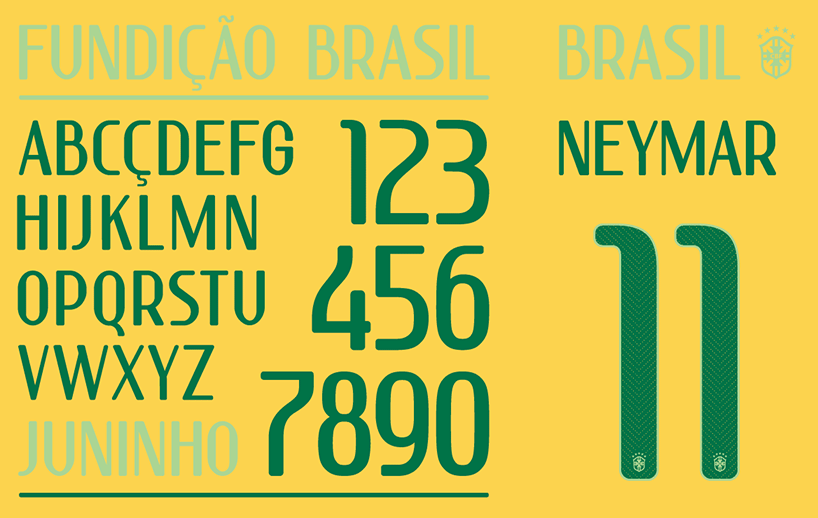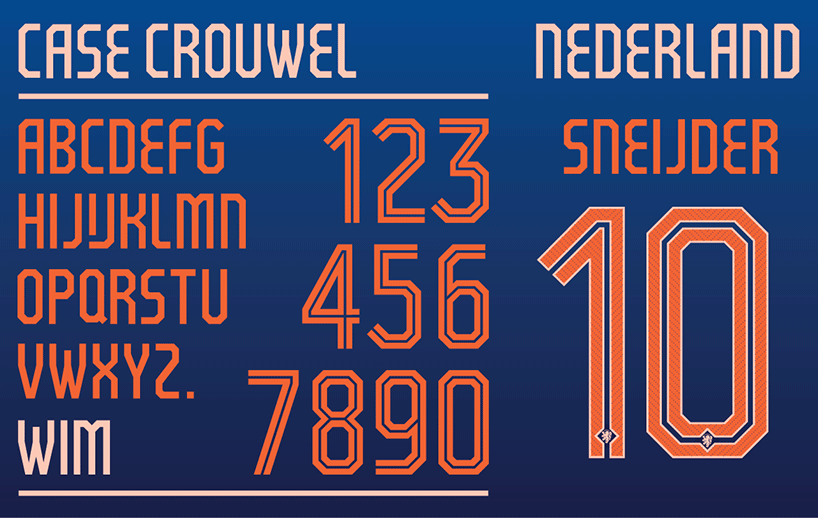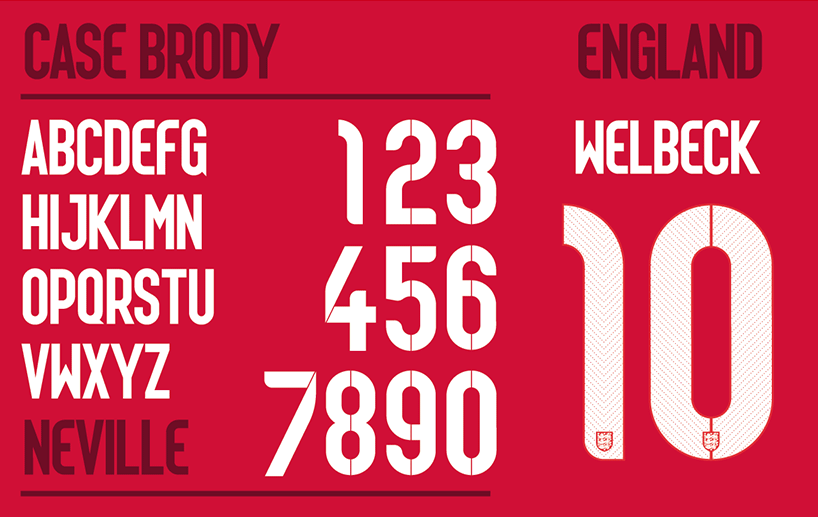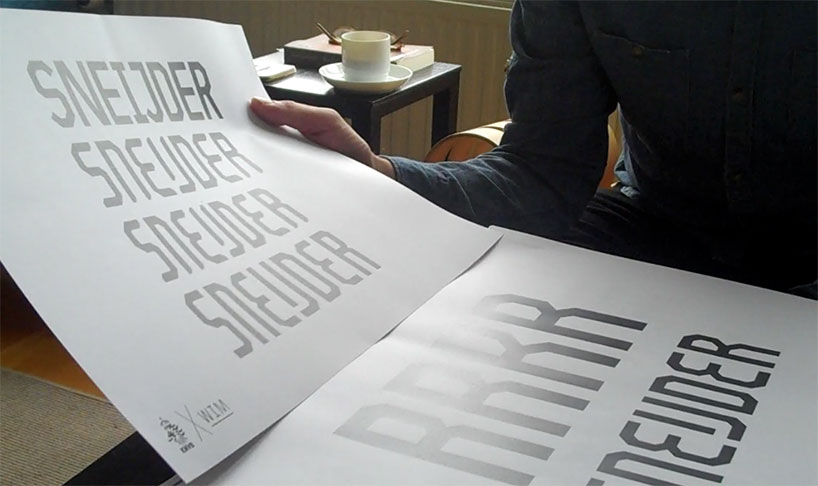
Custom typefaces were the big losers in Mundial and Götze is to blame
It was the first year of the 50’s when Brazil hosted the World Cup for the first time. Then, almost two hundred thousand people gathered in the Maracanã Stadium to watch their nation’s pride Seleção against Uruguay. It was an epic moment, as the world’s largest stadium, which resembles a spaceship, was meant to embody not only Brazil’s athletic ambition but also “the country’s place in the modern world.” Unfortunately, Brazil lost 2 to 1 in that match and its “stray-dog complex” has remained alive up to the present day, despite of the five World Cups that has won since then. Fast forward to today. Brazil remains a dog howling for domination. Deutschland had its payback time against Argentina and a young man, for many also an arrogant, became the golden German boy du jour. But if you are a typophile you probably won’t appreciate Götze’s sweaty victory. No, you are ok with just another trophy that has no typographic interest to it. You see, Germany’s jerseys had the same condensed typeface as every other jersey of any other national team Adidas was responsible for. The ribbon-like numbers with shadows at their lower parts and the name lettering with its typical grotesque design are not for sure the winning bet of the World Cup Design 2014. Herr Götze, Typeroom is here to remind you of every design lesson this Mundial has to offer. Please do read on.
Design lesson #1: You can make history by using Helvetica in two-color mode
It seems that in the world of football people get mad about this sans-serif typeface and there are two designers out there to prove it. Rick Hincks' absolutely minimal posters depicting the best goals ever, that are up for sale if you pay a visit to Rick Hincks' shrine, are something to remember. In these two-color diagrams of memories, that every football fan has to know by default, Helvetica is the only type element that demands our attention. In the same, distilled way, Criswell Lappin of the Wellnow Design celebrated 80 years of international football history. Stripped down to the bare essentials his vivid project shares with football the element of simplicity.
Design lesson #2: You can require anything insane if your name is FIFA
Yes, of course you can. In case you thought that designing a World Cup football kit was relatively straightforward, FIFA’s 92-page Equipment Regulations suggest the opposite. With some of the strangest or strictest design guidelines, FIFA has managed to keep manufacturers’ logos toned down and that’s a plus. So, dear designer, please follow some of the most strict rules available out there
• The size of the number on the back of each shirt used by Players in any men’s Match must be between 25cm and 35cm in height and positioned in the centre of the back of the shirt.
• The number must be entirely visible when the Player’s shirt is tucked into the shorts.
• The stroke width of the figure of the numbers on the back of the shirt used by Players must be between 3cm and 5cm.
• The number on the front of the shirt must be positioned at chest level. The size of the number must be between 10cm and 15cm in height.
• The Player’s name must be positioned above the number on the back of the shirt. The letters used for the Player’s name shall be between 5 and 7.5cm in height and must be separated from the number by at least 4cm.
Or else go where no one can hear you “scream”. The whole regulations can be seen here.
Design lesson #3: The earlier the Mundial, the better the poster design
“The World Cup comes around once every four years, and with it comes the official poster. Some of them are as iconic as a Gordon Banks save or Cruyff turn, and others are as boring as a goalless draw between Bolivia and South Korea. While recent editions have become increasingly corporate, taken as a whole they are a delightful slither of global graphic design history over the last 84 years. With the twentieth edition of the competition just around the corner, I recently embarked on my own World Cup poster project, re-imagining each tournament poster and hopefully improving on some of the originals!” With these words James Taylor re-designed the official World Cup posters from 1930 to 2014- with a vintage approach that is both fresh and contemporary. You can see his work here.
Design lesson #4: You will be amazed at how football inspired magazines are so not dead
With Eight By Eight, design duo Priest+Grace have created what they call “the magazine the beautiful game deserves.” This quarterly publication is devoted entirely to soccer and its eye-popping illustrations by noted artists are the perfect match to a very basic typographic approach. Another case of exceptionally good football journalism is Howler. This football magazine was crowd-funded raising $69,001 and for its fifth issue, the World Cup edition, the cover was a typographic synthesis with an illustrated cup in the center.
image via howler
Design lesson #5: You will appreciate a team some 27% more if it has a customized typeface
World Cup is the biggest football event of the universe so it’s a good opportunity to pit rival typefaces against each other to determine once and for all which is the best. Today, many national teams use custom typefaces for their jerseys but in most cases, for the sake of fresh appearance, legibility is not the basic design guideline. The first notable attempt is from 2006’s World Cup abutting to 2014’s where much more teams had their own typeface. The following typefaces were designed exclusively for each country. Unfortunately, no one made it to the final.
Case Brody
Nike commissioned Neville Brody to design a custom typeface for the World Cup 2014 English jersey. As he said, inspiration was focused on the intersection between flair and workmanlike reliability. The result is a sans serif condensed, rounded typeface with tight spacing. Numbers are decorated with a diagonal pinstripe motive and slight stencil cuts to give an industrial aesthetic.
image via designboom
Fundição Brasil
Brazil was the organizing country for World Cup 2014. Nike is the responsible brand for Brazil’s jerseys, so they developed a unique condensed typeface inspired by the hand-printed posters seen on Brazilian streets. Numbers are bottom-heavy with thickness curt switching like those on marker-made fonts. Letters are more consistent with equal bottom and top weight.
image via designboom
Ronaldo
The typeface Nike created for Portugal’s World Cup 2014 jerseys is a modern version of the traditional Art Deco letterings used on Portuguese signs. Both letters and numbers have the same design elements producing a condensed typeface with plain curves.
image via designboom
Case Crouwel
During World Cup 2010, Nike used a typeface with full square characteristics reflecting the De Stijl movement on Dutch jerseys numbers. For Netherlands’ World Cup 2014 jersey, Nike collaborated with the famous graphic designer and typographer Wim Crouwel. This is also the 125th anniversary jersey for Netherlands, so Crouwel -in collaboration with Floor Wesseling- created an inline squarish typeface with retro aesthetic based on "Gridnik" typeface. Inline numbers were used widely in football in the 70’s.